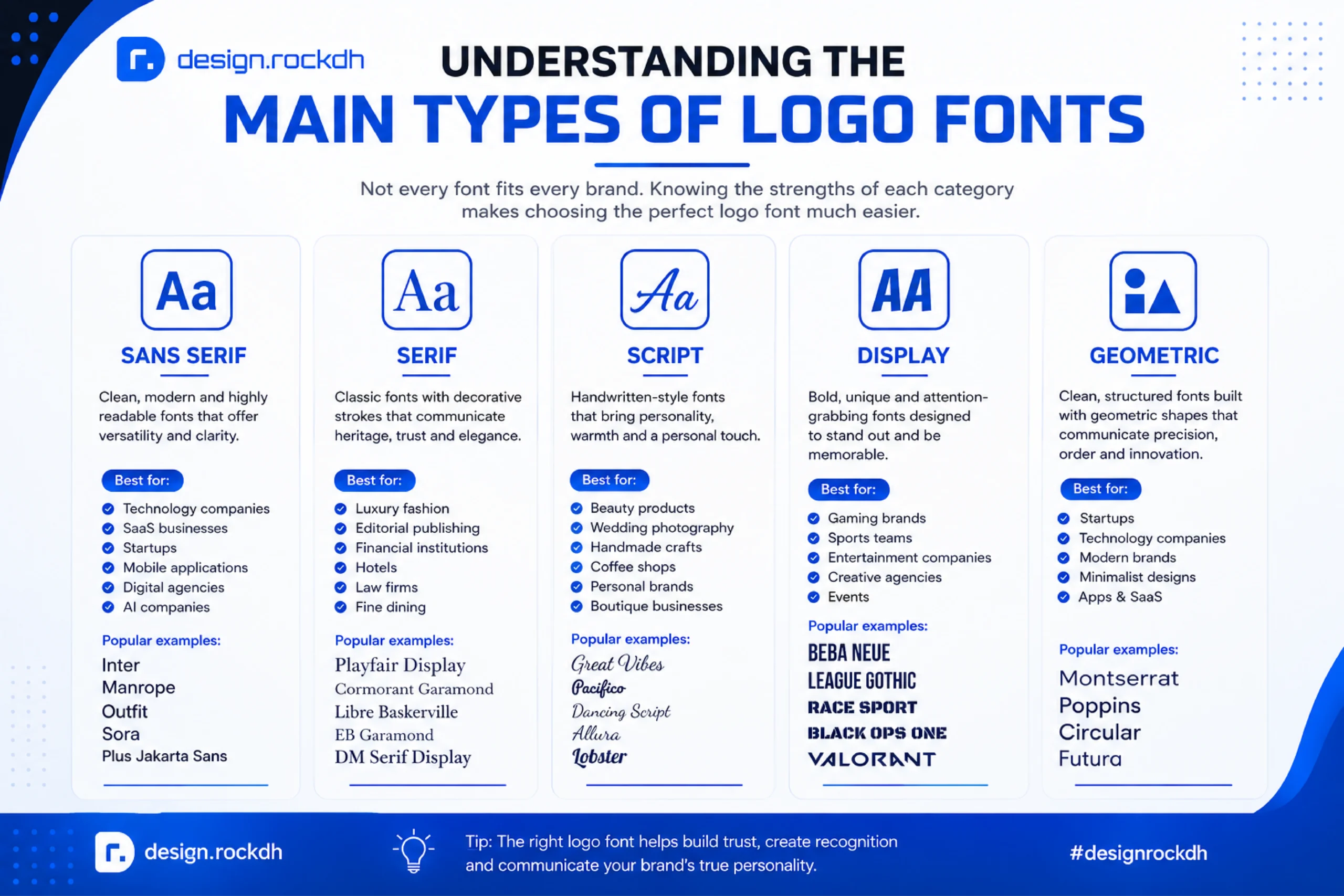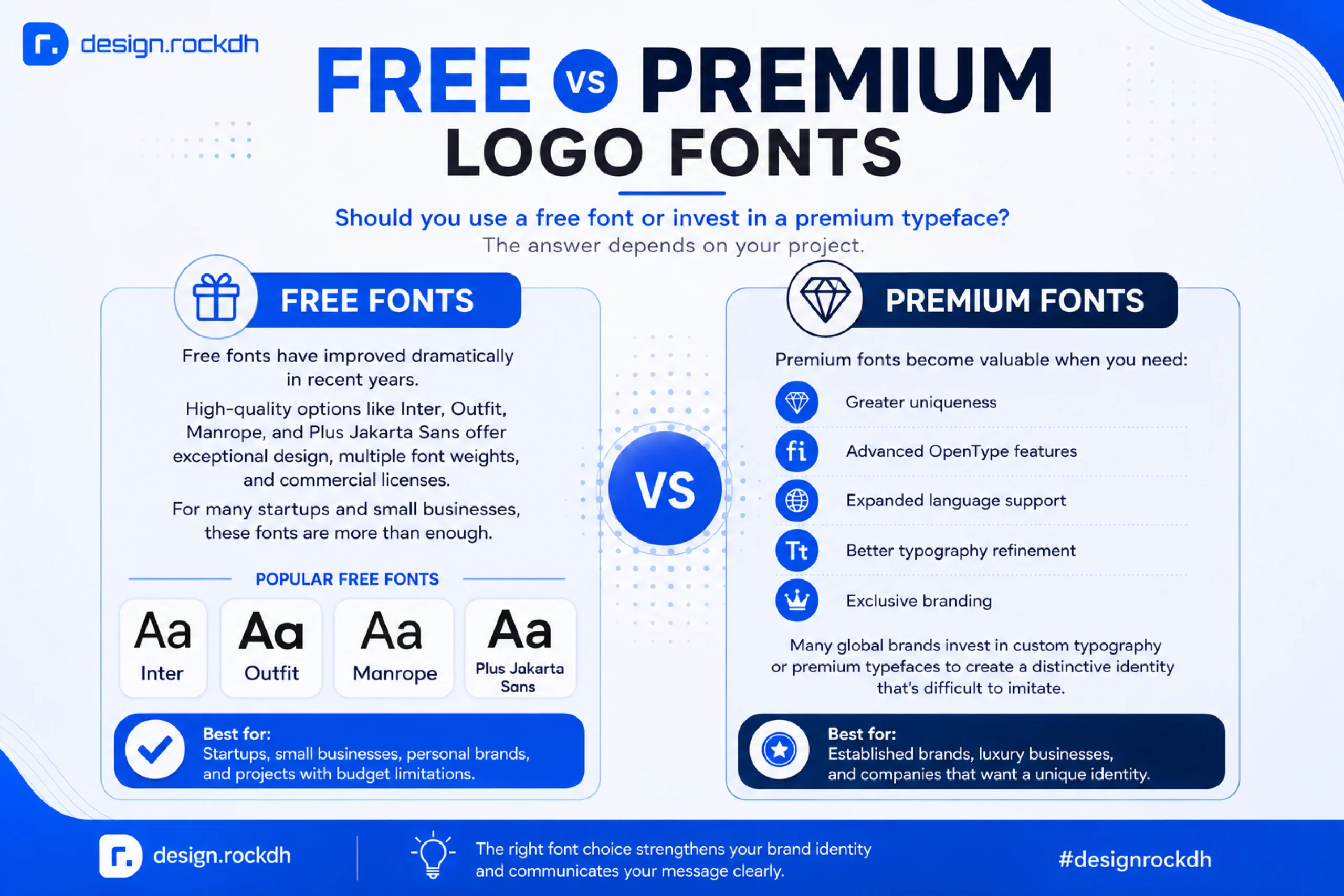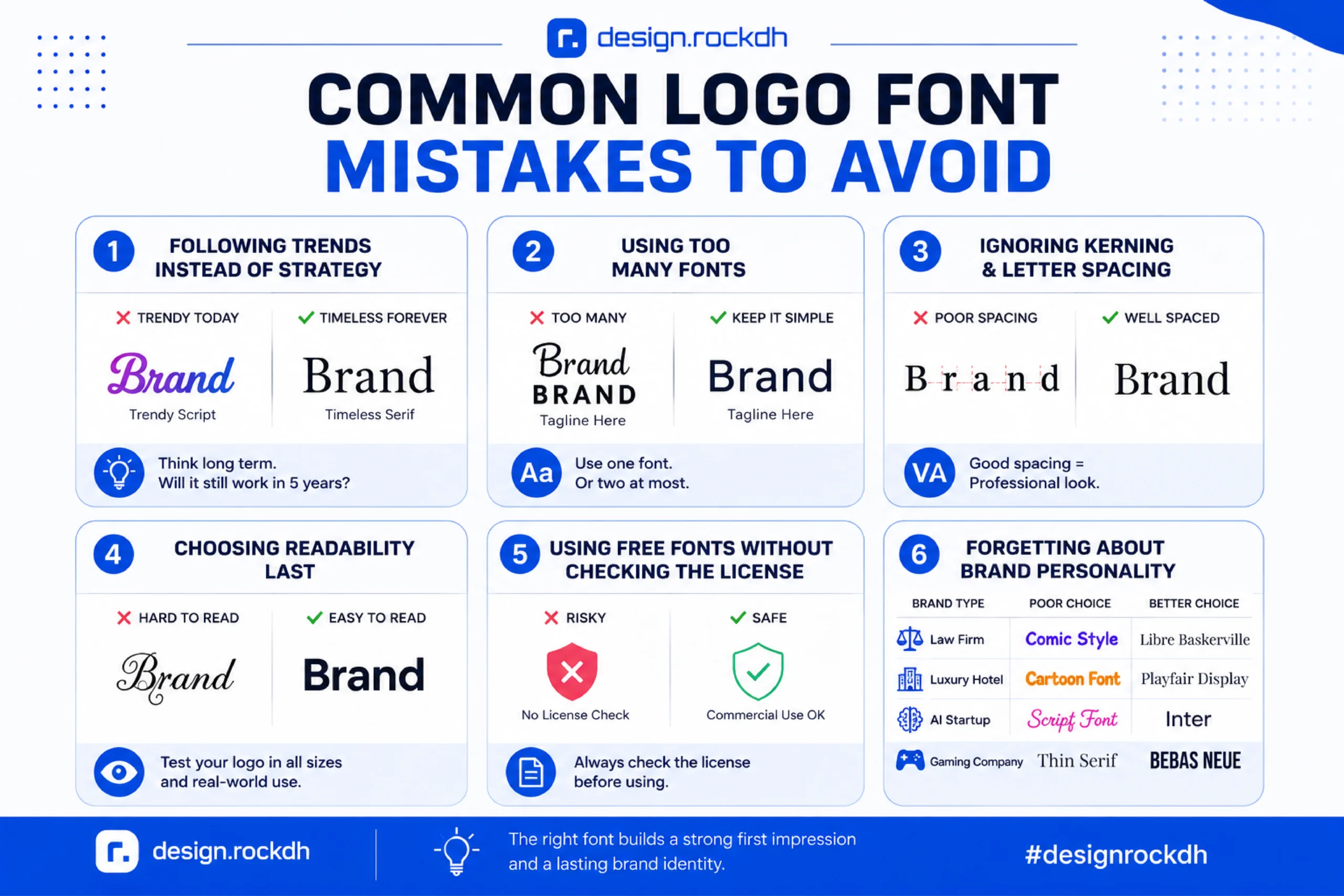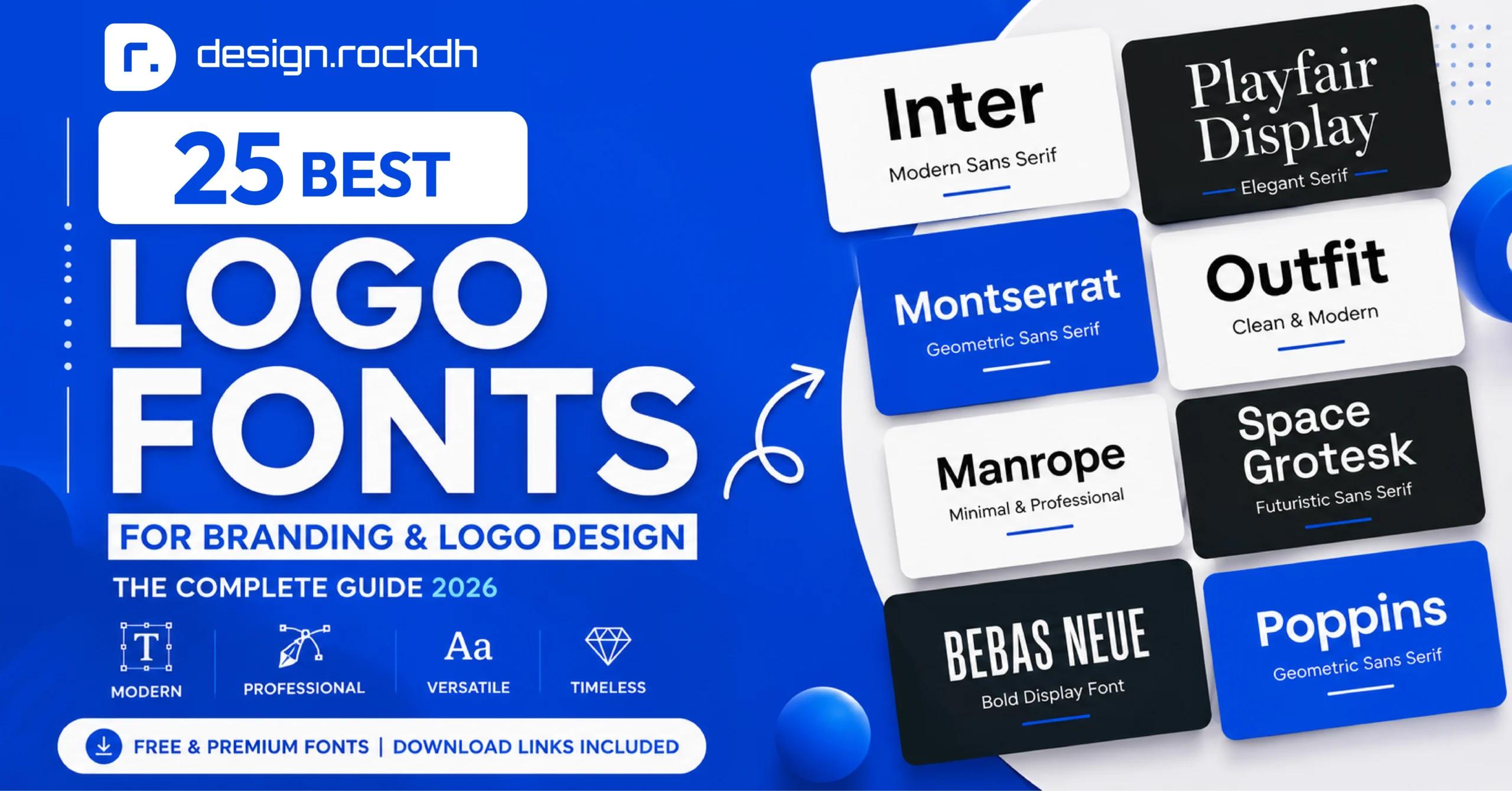
A logo is much more than a symbol—it’s the face of your brand. Long before customers experience your products or services, they’ll form an opinion based on your visual identity. While colors, icons, and layouts all contribute to that first impression, typography often does the heavy lifting.
Think about companies like Google, Netflix, Coca-Cola, Canon, or Zara. Even without their icons, their names are instantly recognizable because of their distinctive typography. That’s the power of a well-chosen logo font.
Selecting the right font isn’t simply about picking something stylish. Your typeface should communicate your brand’s personality, remain readable across different sizes, and stay relevant for years—not just follow today’s design trends.
Whether you’re designing a logo for a startup, refreshing an existing brand, or creating identities for clients, understanding logo typography is essential. In this guide, you’ll learn how professional designers choose fonts, discover some of the best free and premium logo fonts available today, and find trusted resources to download them.
Why Your Logo Font Matters
Typography is one of the most powerful elements of brand identity because it influences perception before people even read your message.
A modern sans-serif font immediately suggests innovation and simplicity. A classic serif communicates tradition and trust. A handwritten script feels personal and artistic, while a bold display font demands attention.
Research in branding and consumer psychology consistently shows that people form opinions about a brand within seconds. Much of that judgment comes from visual design—including typography.
A thoughtfully selected logo font can make your business appear:
- Professional
- Modern
- Innovative
- Luxurious
- Trustworthy
- Creative
- Friendly
- Premium
On the other hand, choosing a trendy or poorly designed typeface can make your brand look outdated, inconsistent, or difficult to remember.
Simply put, your font becomes part of your brand’s voice.
What Makes a Great Logo Font?
Professional logo designers rarely choose fonts based only on appearance. Instead, they evaluate several key characteristics before making a decision.
Readability
Your logo should remain legible whether it’s displayed on a business card or a billboard. If people struggle to read your company name, the font isn’t doing its job.
Personality
Every typeface carries emotional meaning. Before choosing a font, ask yourself:
- Does it feel premium?
- Is it approachable?
- Does it match my industry?
- Will it appeal to my target audience?
A luxury jewelry brand and a gaming company shouldn’t use the same typography.
Scalability
A good logo works across every platform:
- Websites
- Mobile apps
- Packaging
- Business cards
- Social media profiles
- Product labels
- Merchandise
- Email signatures
Always test your logo at both very small and very large sizes.
Timelessness
Many trendy fonts disappear after a few years. Brands that invest in timeless typography avoid expensive redesigns later.
Instead of following trends, prioritize clarity and longevity.
Understanding the Main Types of Logo Fonts
Not every font fits every brand. Knowing the strengths of each category makes choosing much easier.
Sans Serif Fonts
Sans serif fonts have become the standard choice for modern businesses. Their clean appearance, balanced proportions, and excellent readability make them incredibly versatile.
They’re especially popular among:
- Technology companies
- SaaS businesses
- Startups
- Mobile applications
- Digital agencies
- AI companies
Popular examples include:
- Inter
- Manrope
- Outfit
- Sora
- Plus Jakarta Sans
These fonts work beautifully across websites, mobile interfaces, and digital branding.
Serif Fonts
Serif fonts feature decorative strokes at the ends of characters. They communicate heritage, authority, sophistication, and elegance.
Brands in these industries often prefer serif typography:
- Luxury fashion
- Editorial publishing
- Financial institutions
- Hotels
- Law firms
- Fine dining
Excellent serif options include:
- Playfair Display
- Cormorant Garamond
- Libre Baskerville
- EB Garamond
- DM Serif Display
Script Fonts
Script fonts imitate handwriting and bring personality to a brand.
They’re ideal for:
- Beauty products
- Wedding photography
- Handmade crafts
- Coffee shops
- Personal brands
- Boutique businesses
However, readability should always come first. Decorative script fonts are best used sparingly.
Display Fonts
Display fonts are designed to grab attention.
They’re commonly used for:
- Gaming brands
- Sports teams
- Entertainment companies
Remember, the most successful logos aren’t necessarily the most complex—they’re the ones people remember. Invest time in choosing the right typography today, and your logo will continue to represent your brand effectively for years to come.